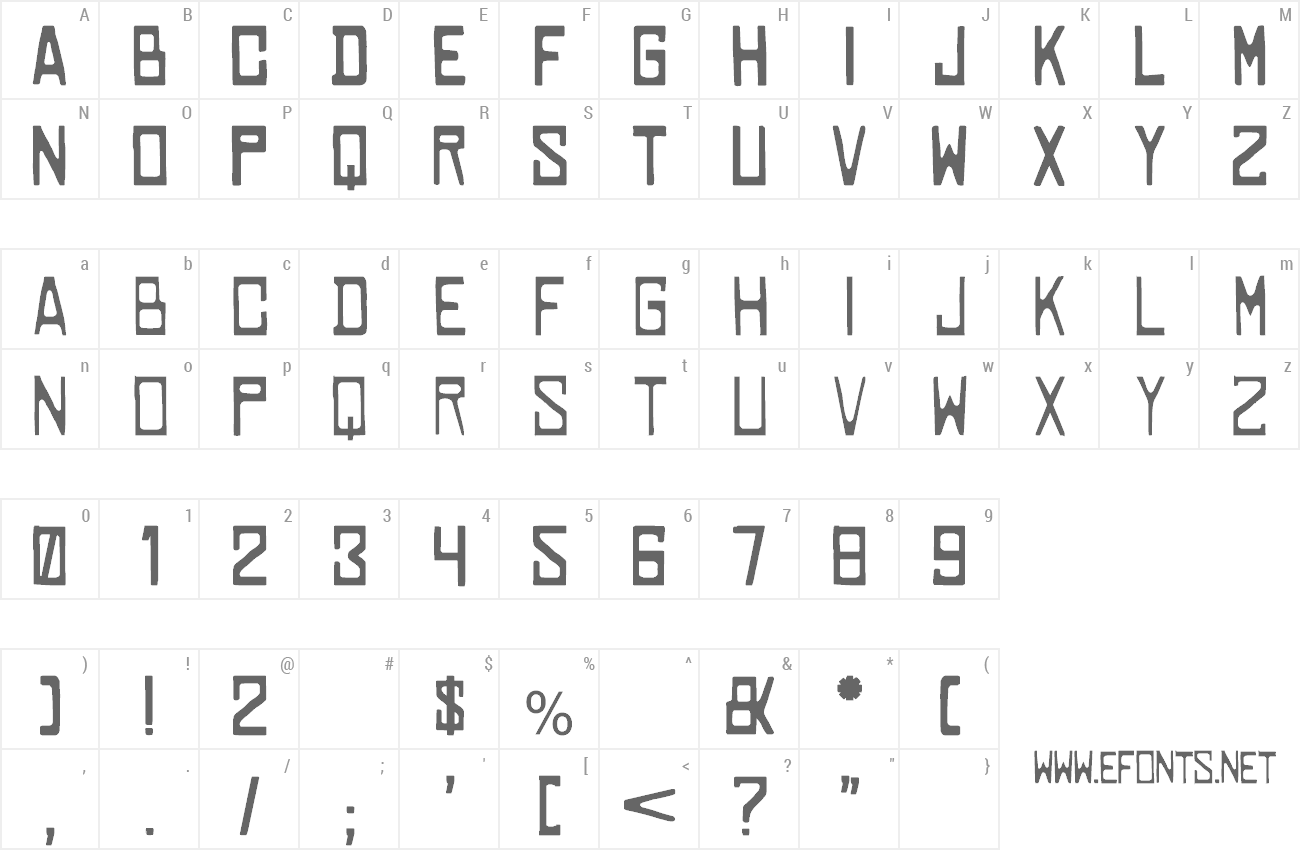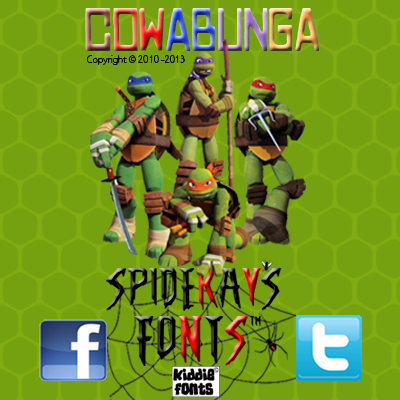
| Font name: | Cowabunga |
| Author: | KiddieFonts |
I have always loved this Eastman and Laird comic book franchise I wanted to create a rough edged font based on the latest 2012 nickelodeon TV series titles the totally bodacious first release did not included numbers... The latest version 2.013 has now been released this includes the missing numbers plus extra tubuloso characters.. COWABUNGA DUDES !!!! |